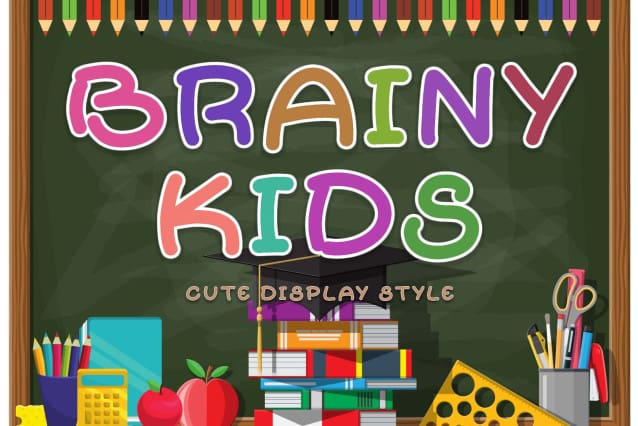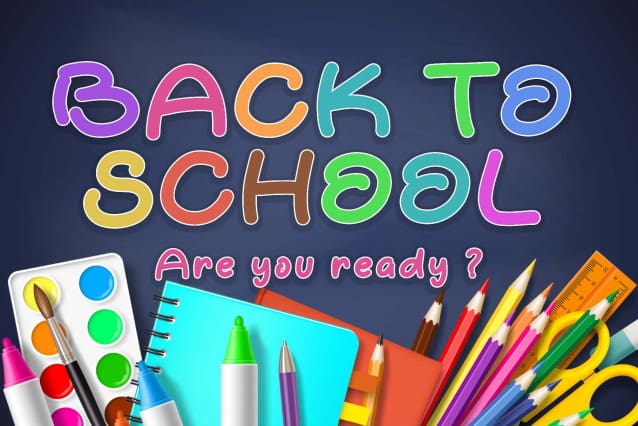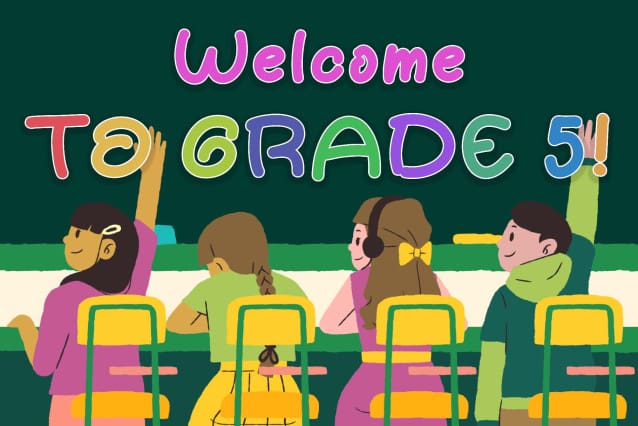
Brainy Kids Font
Brainy Kids Font is a unique and elegant display font. This font is equipped with uppercase, lowercase, numerals, punctuations and multilingual support. Very suitable for summer, back to school, teacher, kids, birthday, funny, Christmas, Father’s Day, 4th of July and others.